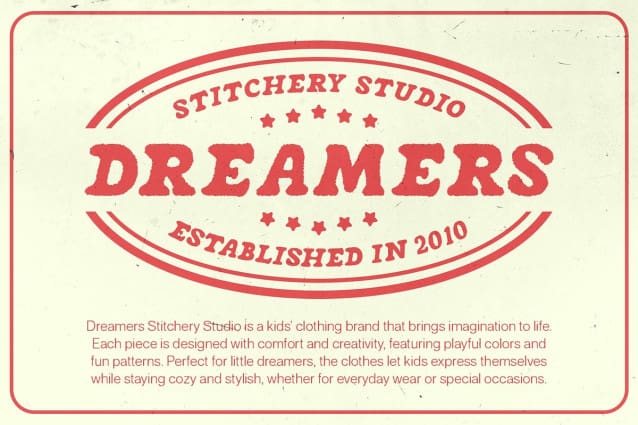
Nashira Rough Font
Nashira Rough Font is a charming serif font that embodies a delightful retro and funky aesthetic, characterized by its unique and playful design. The rounded letterforms and cheerful characters create a sense of nostalgia, making it a perfect choice for projects that aim to evoke a warm, inviting atmosphere.
Rounded Elements for a Cheerful Appeal The font’s rounded letter elements contribute to its cute and friendly appearance, inviting viewers to engage with the content. This whimsical design is ideal for a variety of creative projects, from playful branding to eye-catching posters, where the goal is to communicate joy and creativity.
Rough Texture for Artistic Intrigue Enhanced by a rough texture, Nashira Rough adds an artistic flair that elevates its visual impact. This distinctive effect not only makes the font visually intriguing but also lends it a handcrafted quality that feels both contemporary and nostalgic. The combination of the rough finish with its playful shapes creates a striking balance, making each letter a work of art.
Perfect for Creative Design Projects Nashira Rough is particularly well-suited for design projects that prioritize creativity and personality. Whether it’s packaging for a fun product, promotional materials, or event posters, this font captures attention and conveys a sense of whimsy. Its unique style ensures that your message is communicated with charm and flair.